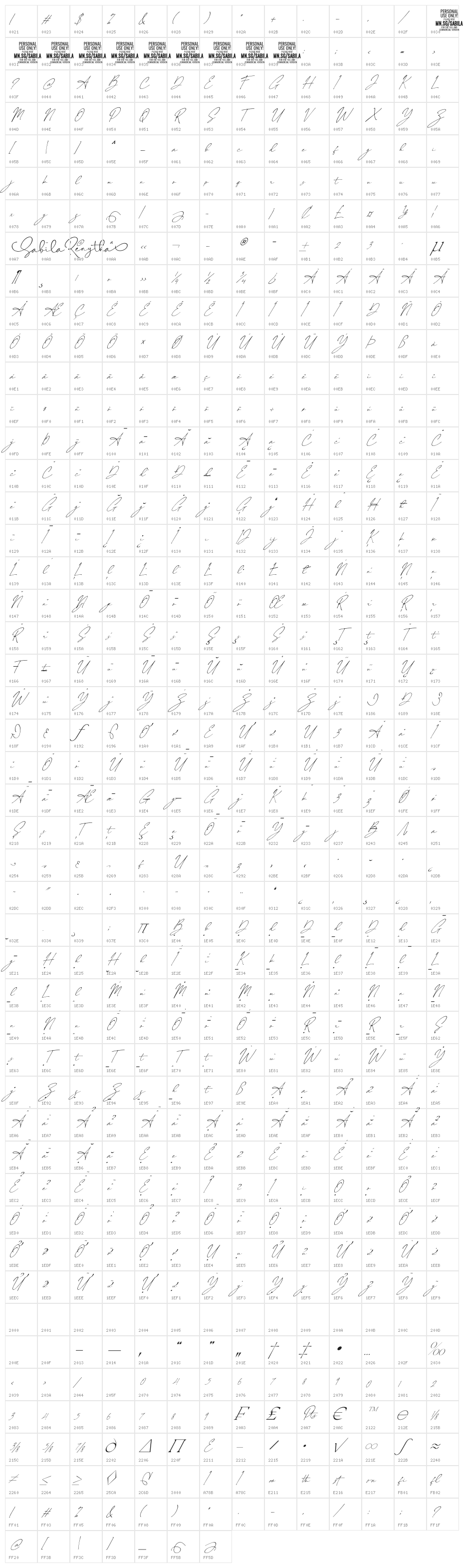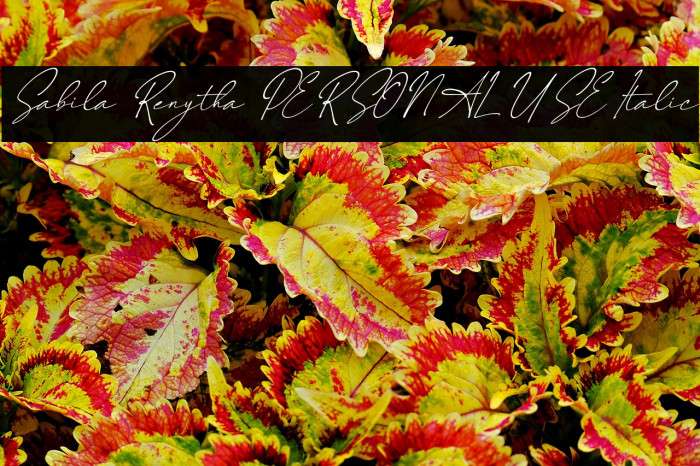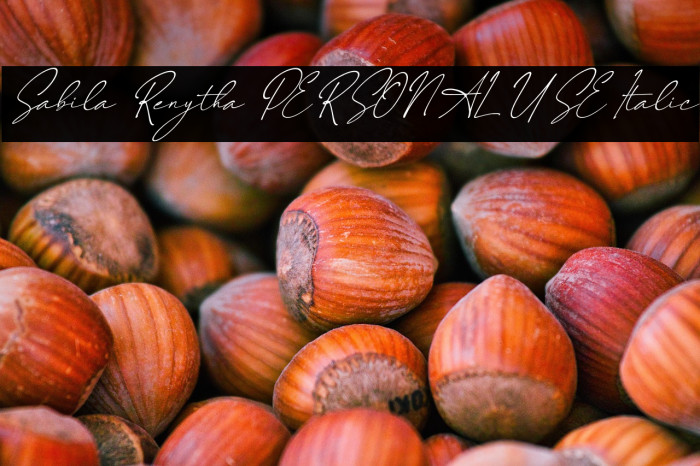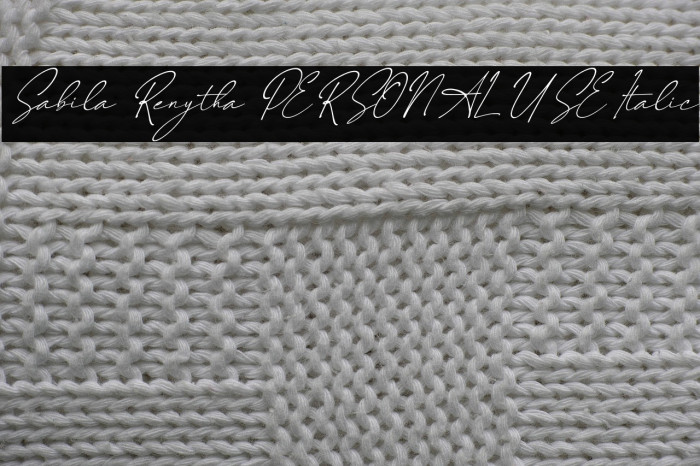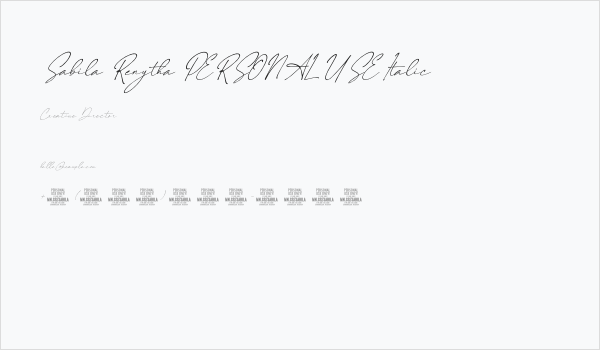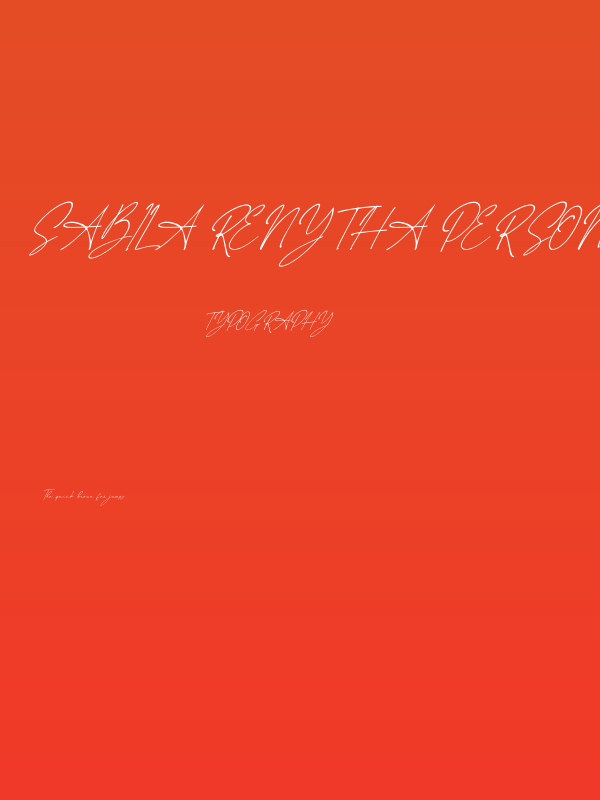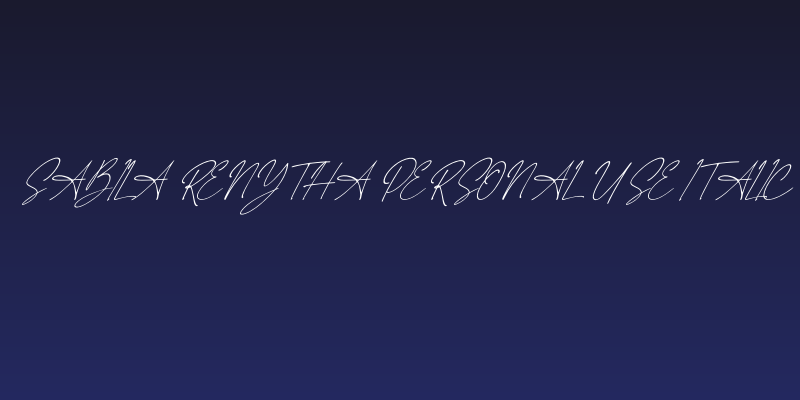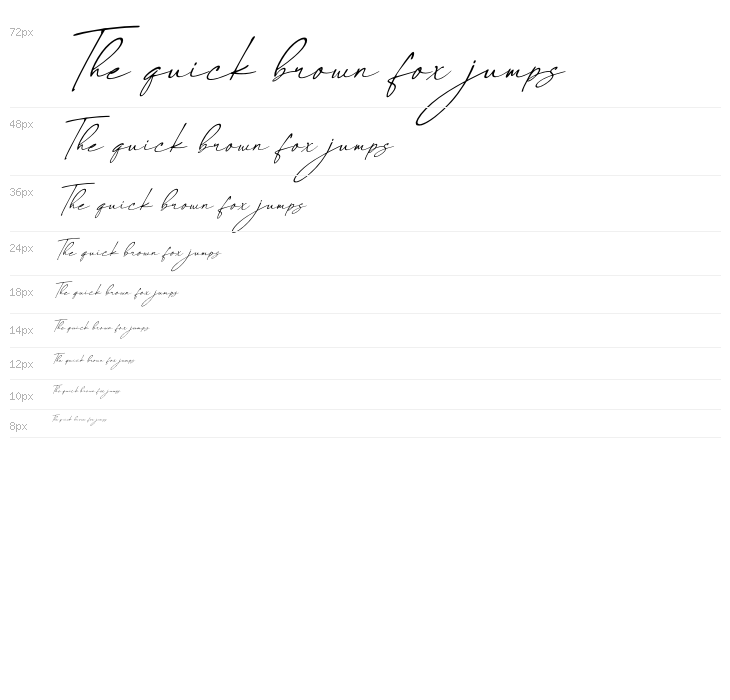
Sabila Renytha PERSONAL USE Italic Font
Sabila Renytha PERSONAL USE Italic Description
This elegant script font features a flowing, cursive style with a sophisticated and artistic flair. The characters are connected, creating a seamless and fluid appearance. The strokes are thin and delicate, with a consistent slant that enhances the italic nature of the design. The uppercase letters are ornate and elaborate, while the lowercase letters maintain a graceful simplicity. This font exudes a sense of refinement and is perfect for projects that require a touch of elegance and class.
| Overall Style | Elegant, Decorative |
| Proposed Projects | Ideal for wedding invitations, elegant branding, personal stationery, and decorative quotes. |